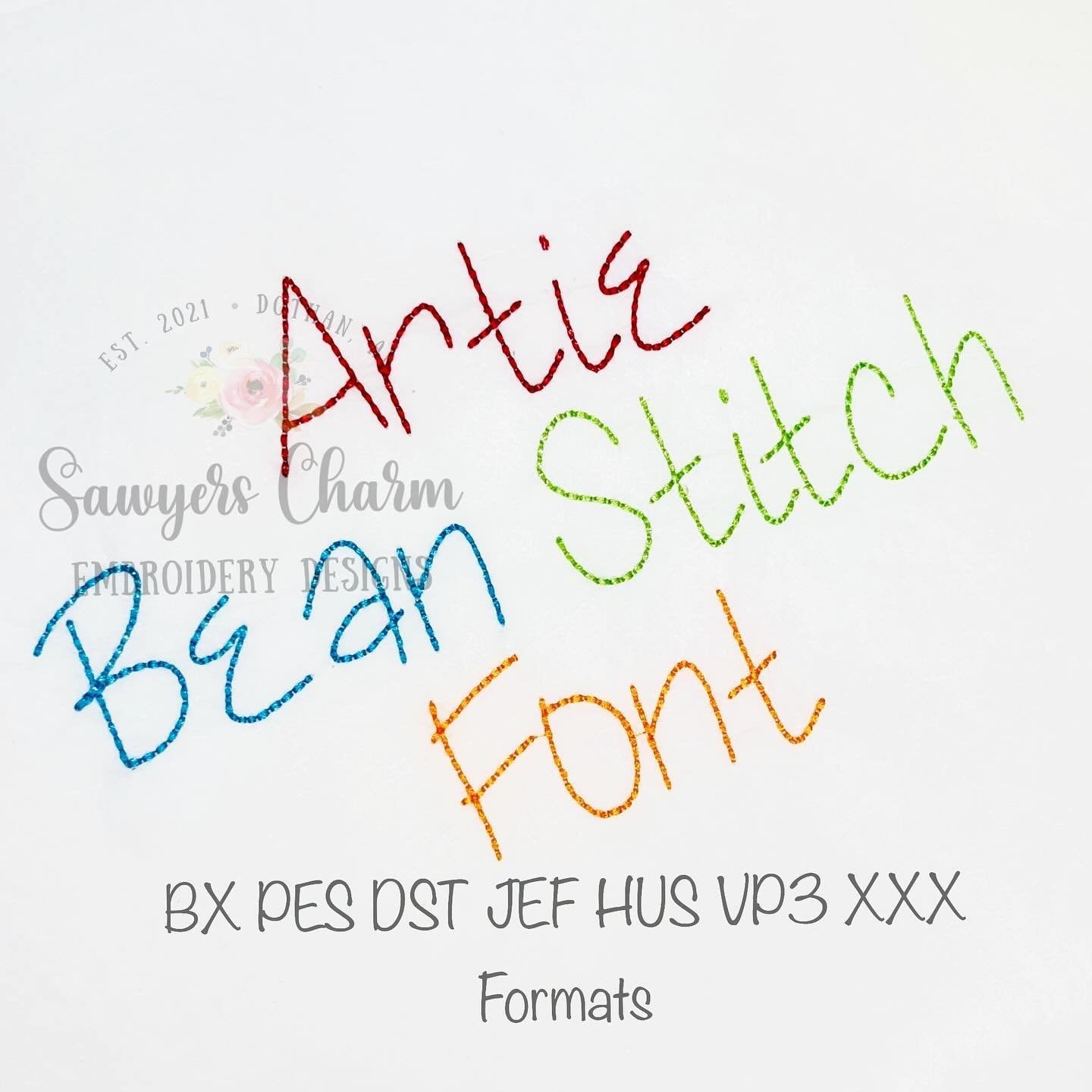
Artie Bean Stitch machine embroidery font, 1/2", 1", 1.5", 2", 2.5", 3", 3.5", BX included, perfect for monograms, girl & boy, quick stitch
This embroidery font comes in 7 sizes.....1/5", 1", 1.5", 2", 2.5", 3", and 3.5". This is a thick bean stitch font. This has all 26 capital and lowercase letters in the alphabet. So many possibilities with this font! :)